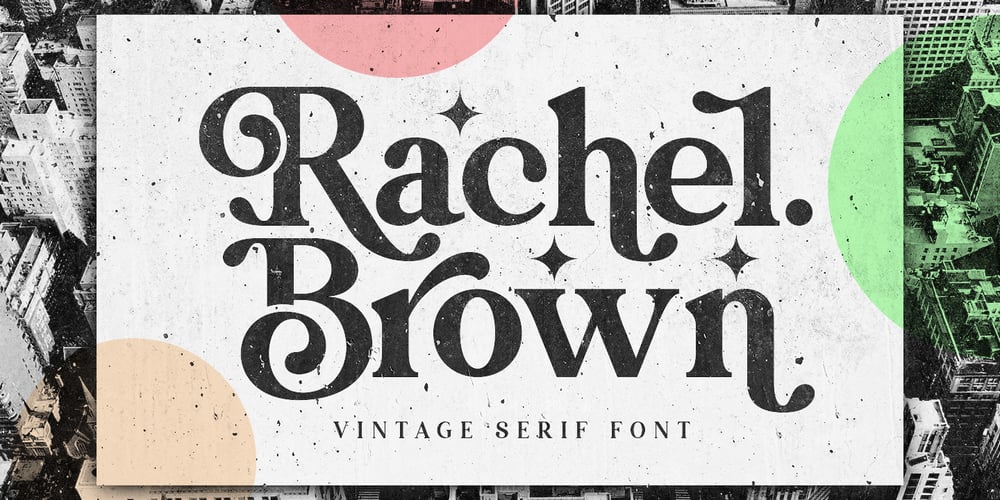
Rachel Brown Font Family was designed by Fajar Gunawan and published by Fargun Studio. Rachel Brown contains 1 styles and family package options. Introducing Rachel Brown!A chic & modern serif font.This font is perfect for branding, logos, social media, prints, stickers, shirts, svg files and more!Rachel Brown is unique as it can be used for a variety of design styles. It fits in wonderfully for free-spirited, boho designs and also for more classy editorial looks!There are a lot of fun stylistic alternates available to use with this font. These letters are embedded into the font file and easily accessible in programs such as photoshop and illustrator.Rachel Brown comes with a wide range of OpenType -features. Keep Standard Ligatures on in normal use. Try Discretionary Ligatures, Swash, Stylistic or Titling Alternates for custom headlines or logos.